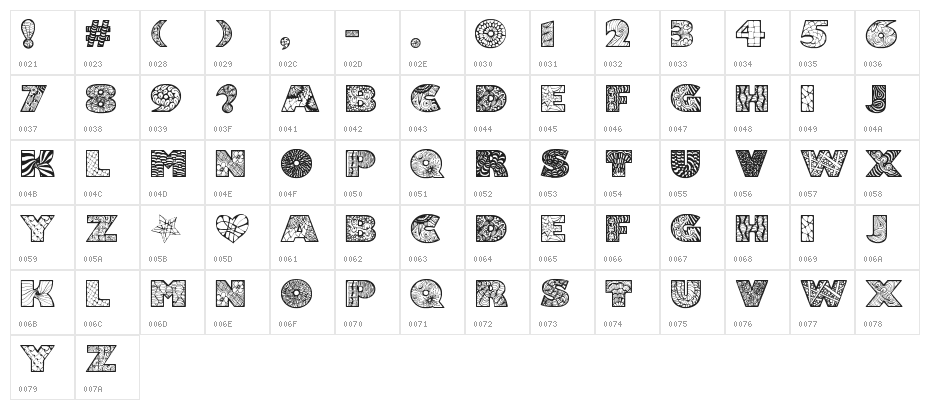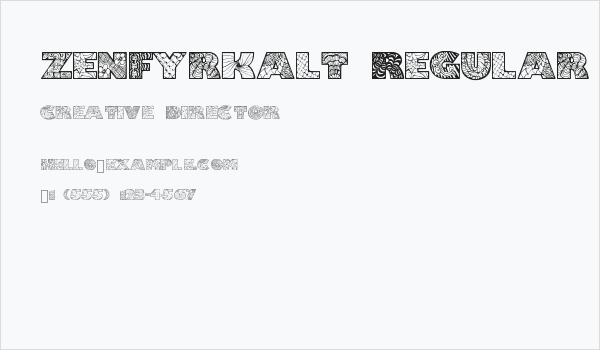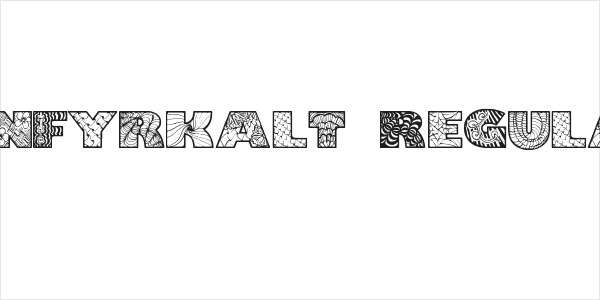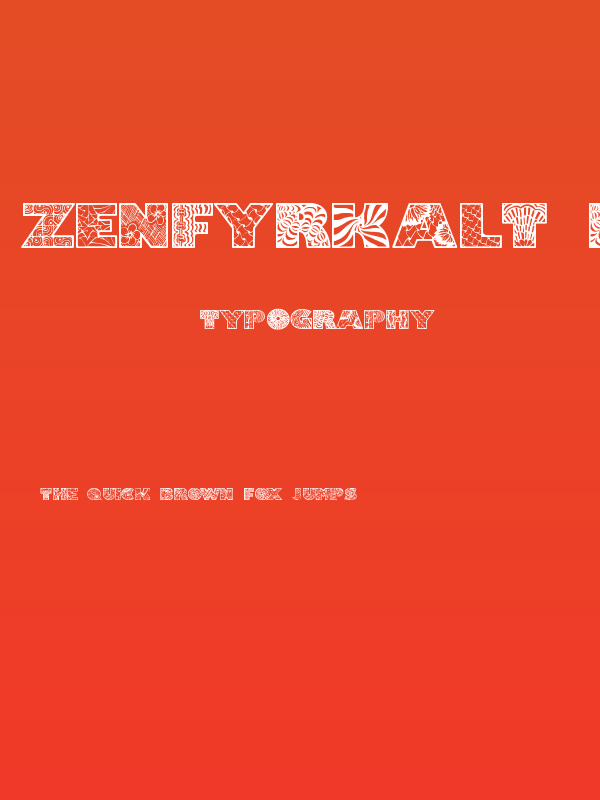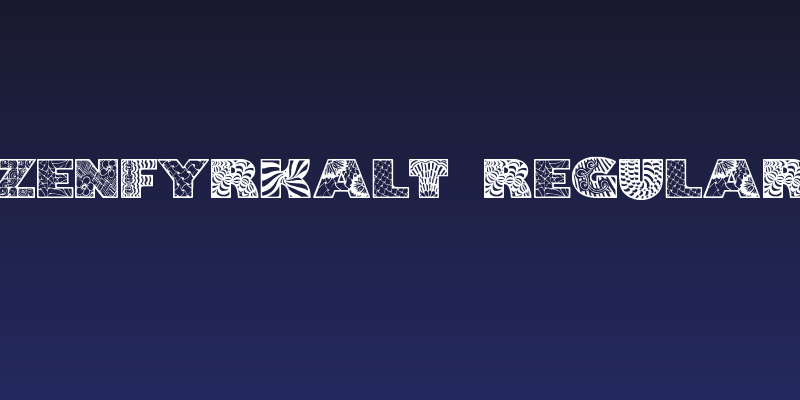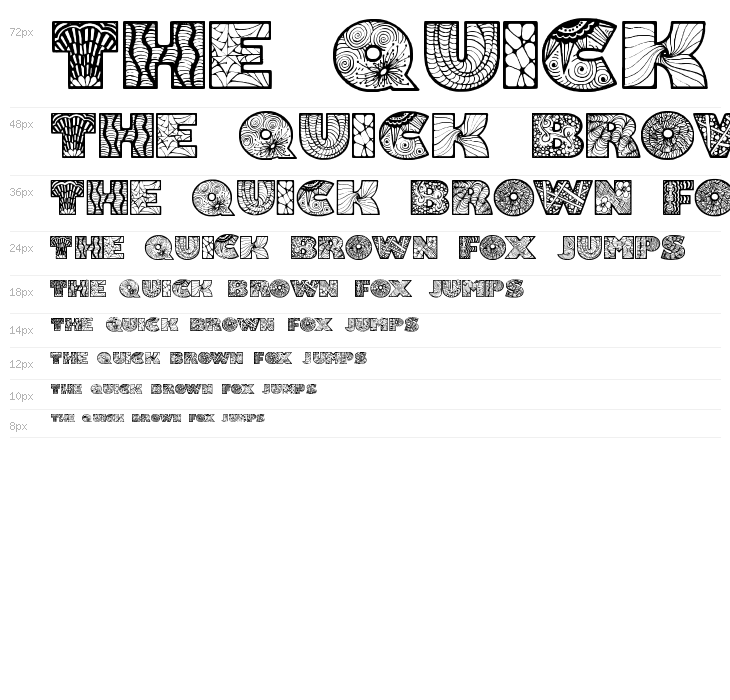
Zenfyrkalt Regular Font
Zenfyrkalt Regular Description
This font features a highly decorative and intricate design, with each character filled with unique patterns and textures. The uppercase and lowercase letters, as well as numbers and special characters, are all adorned with detailed motifs that give the font a playful and artistic appearance. The bold and eye-catching style makes it suitable for creative projects where a strong visual impact is desired. The characters are evenly spaced, ensuring readability despite the complex designs within each letter. This font is perfect for projects that require a touch of whimsy and creativity.
| Proposed Projects | Ideal for posters, artistic projects, children's books, and creative branding. |